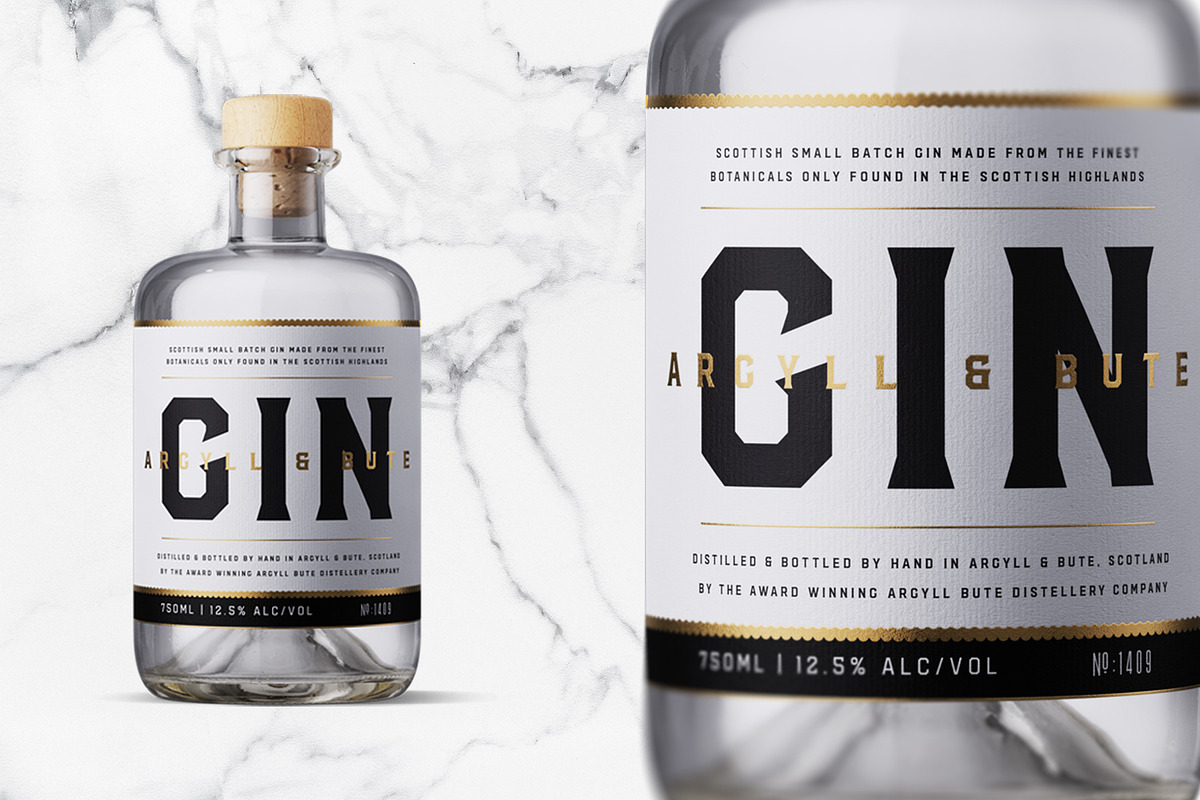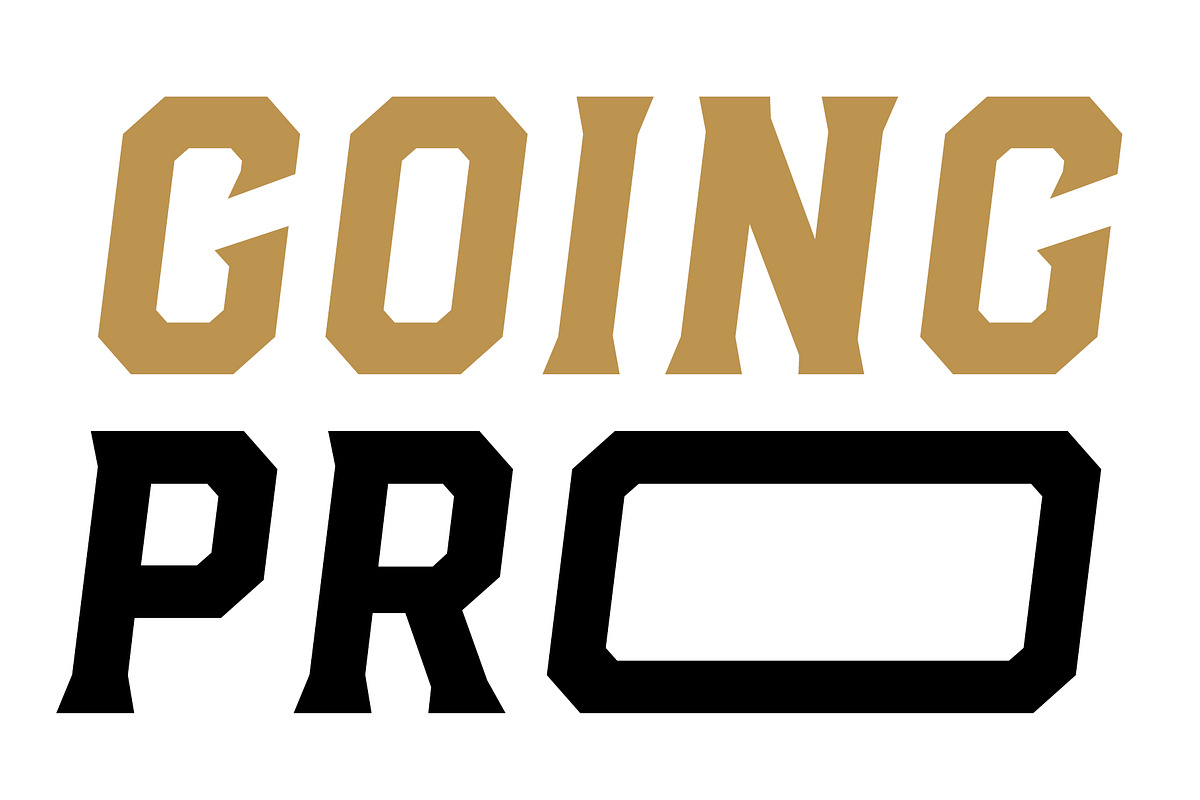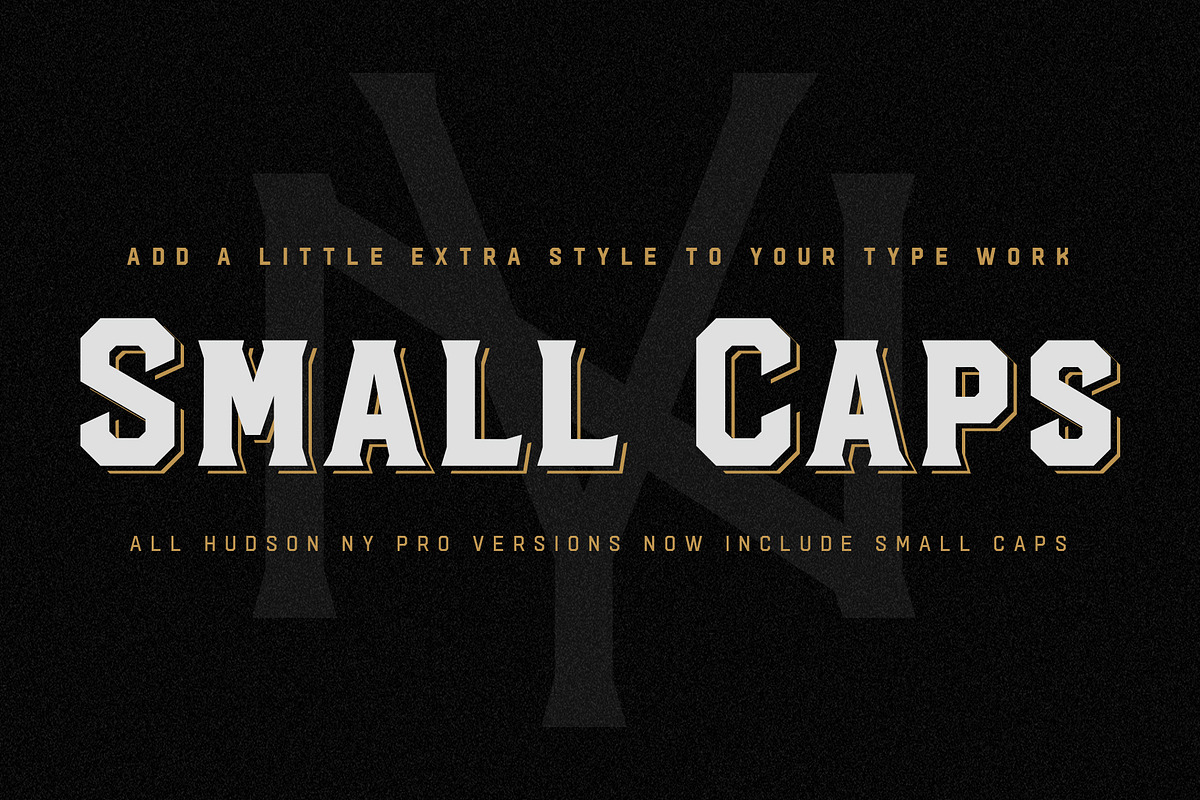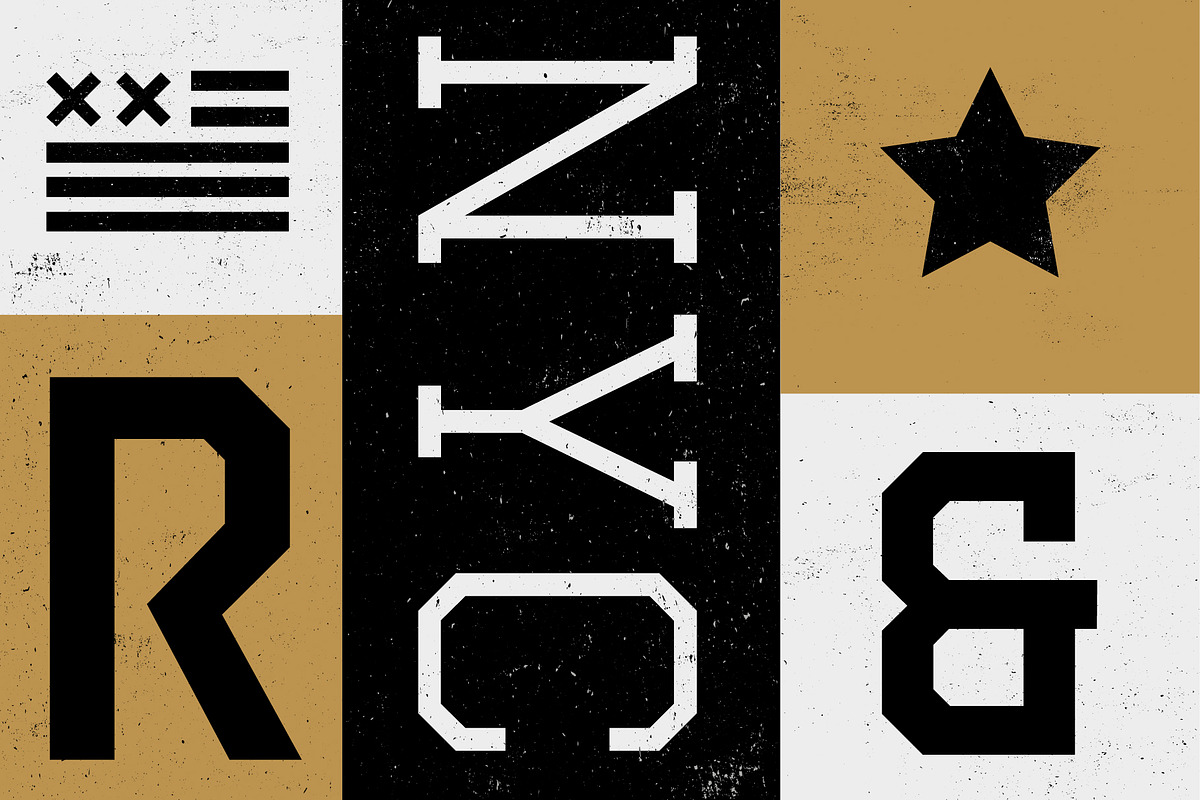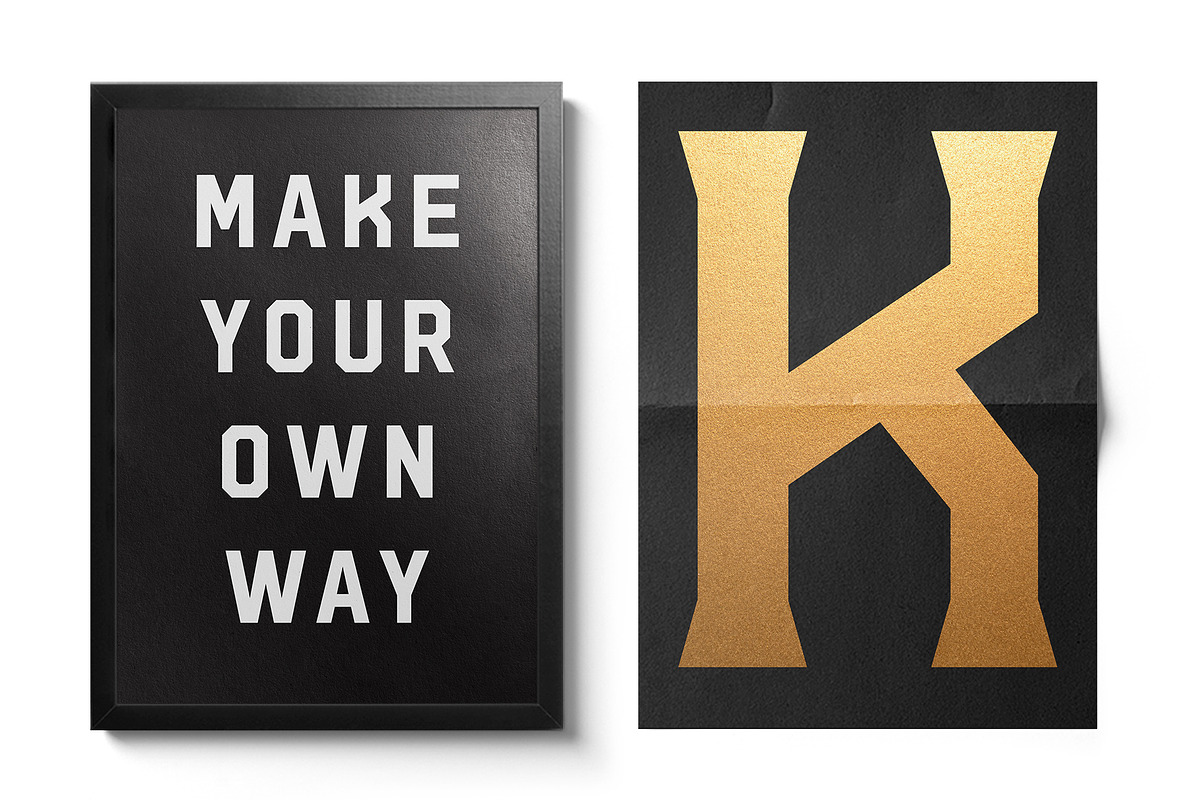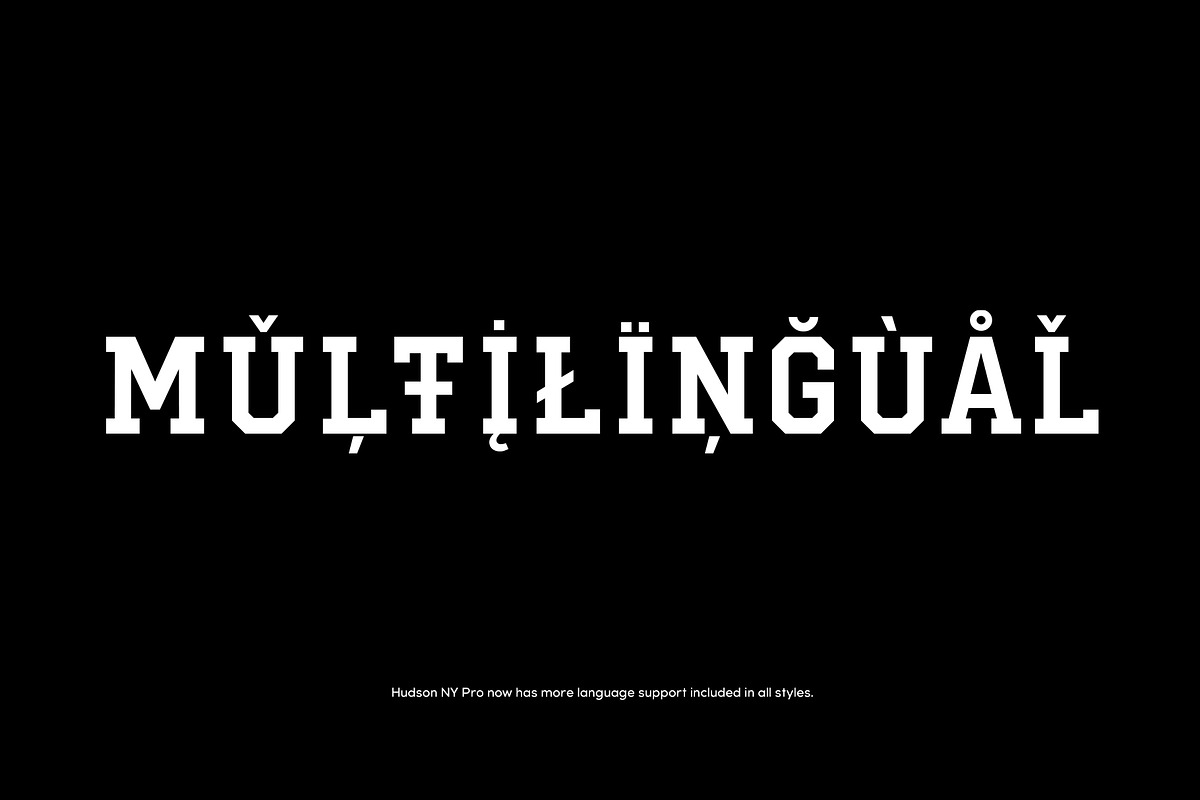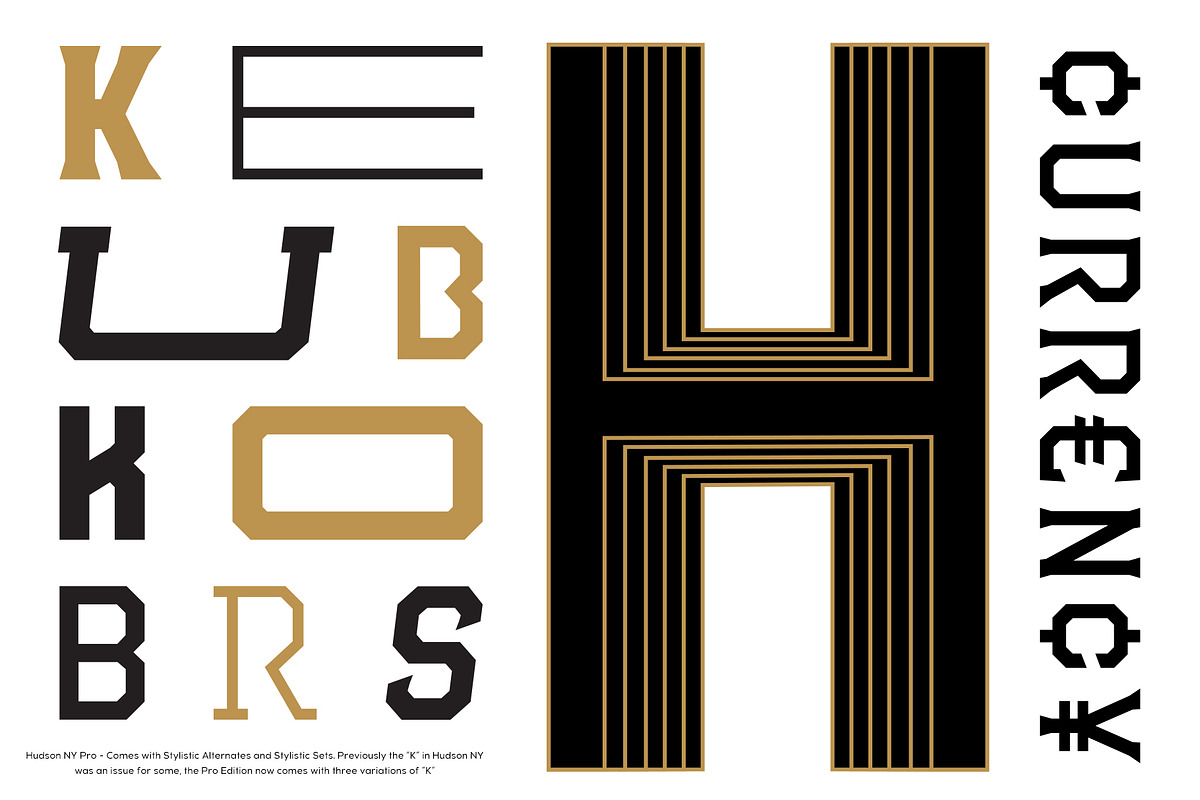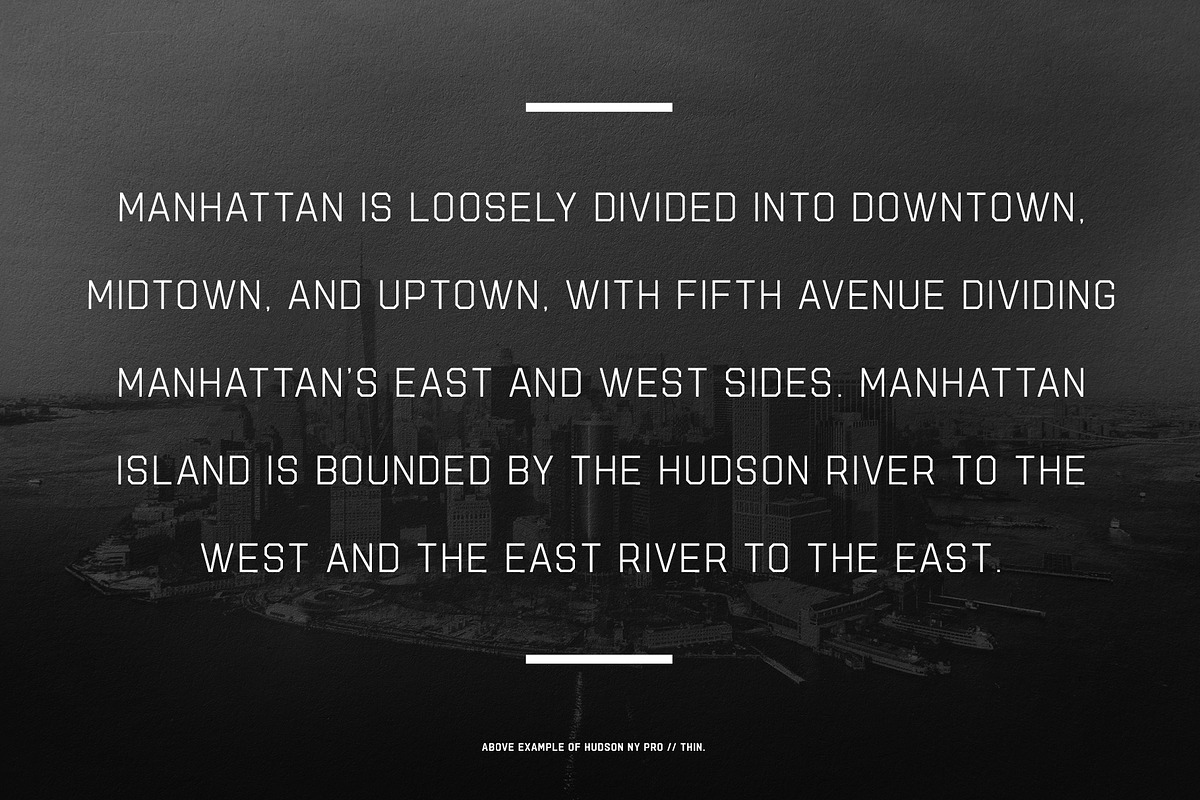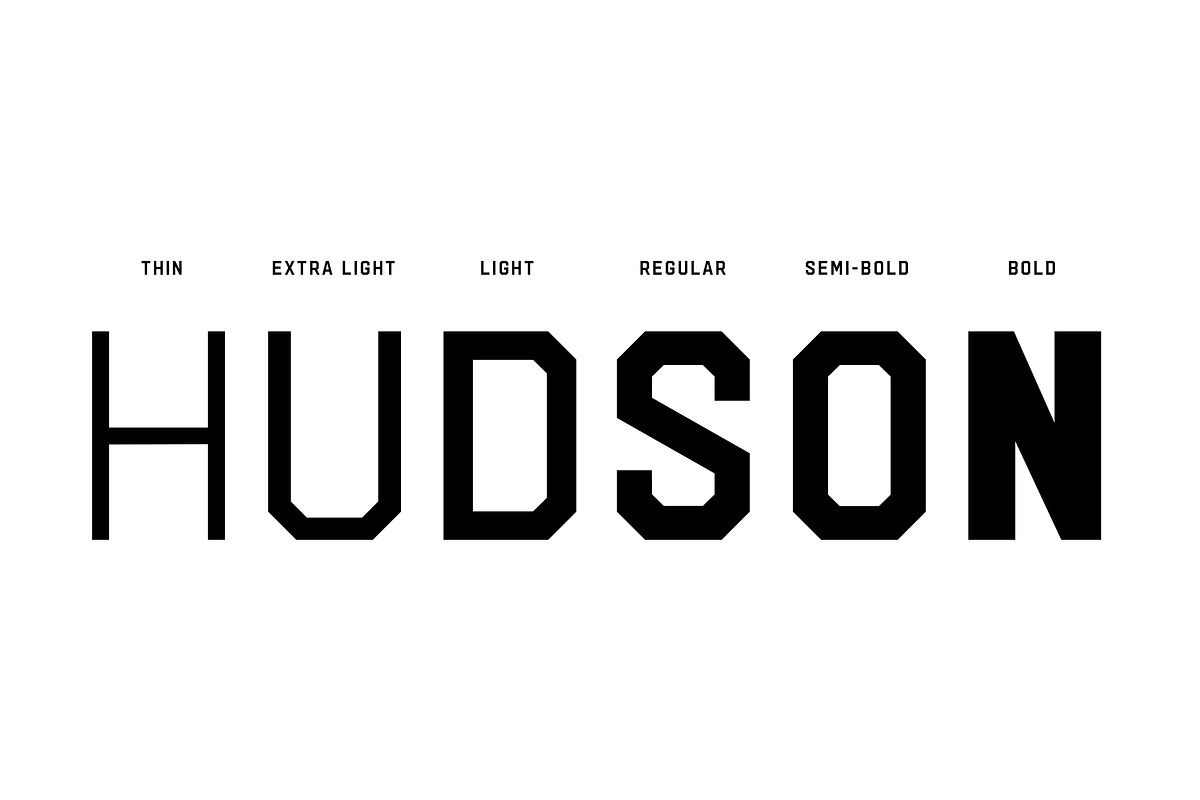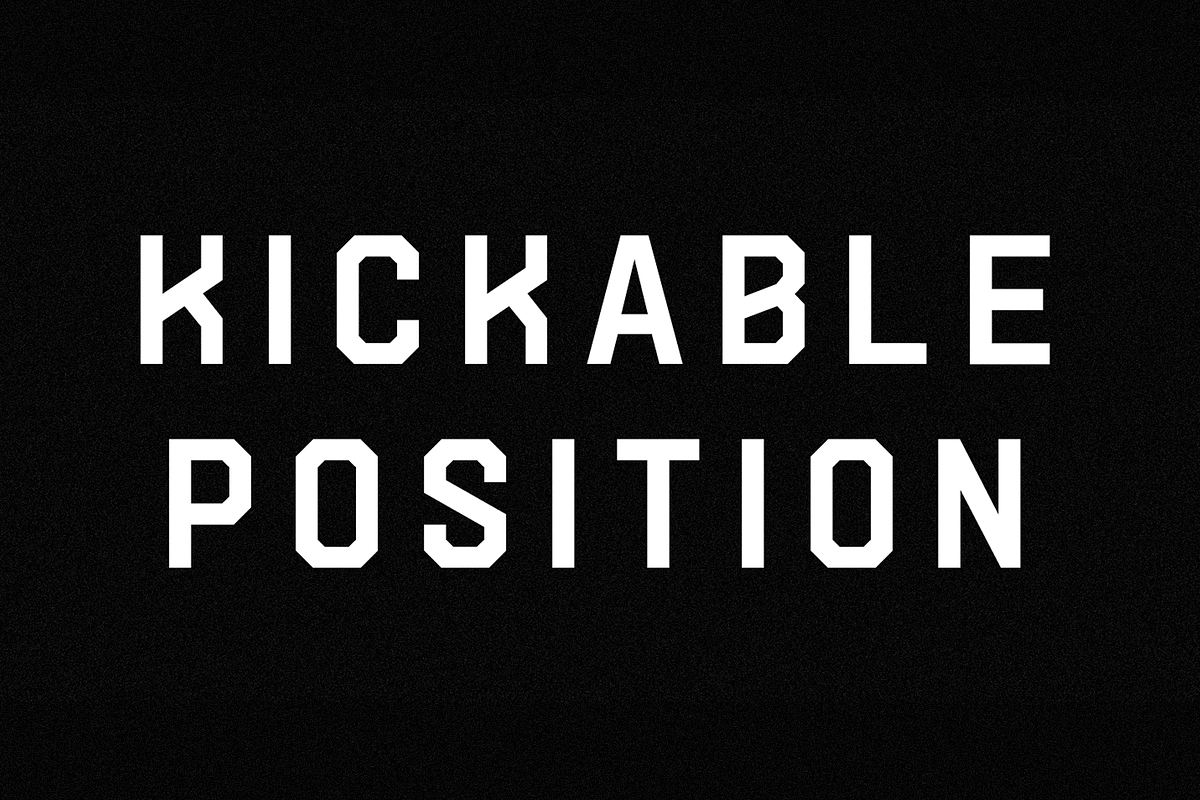
Hudson NY - Pro Edition
It's here and it's a major upgrade to Hudson NY. Weight variations and alternate glyphs were some of the requests that were being received for Hudson NY and these have all been taken care of in the Pro Edition of Hudson NY.
Hudson NY Pro still comes in Regular, Serif and Slab styles now with completely re-drawn glyphs, there are now six weights as well as italics for each style. Some of the additional features included in the Pro Edition is Small Caps, Stylistic Sets and Alternate Glyphs. Hudson NY is now loads more versatile, it is the perfect Display family for sports, beverage and entertainment. Press versions have been dropped in the Pro Edition as these were the lesser used and sluggish fonts of the original Hudson NY family so the focus was to create a cleaner family with more usability options.